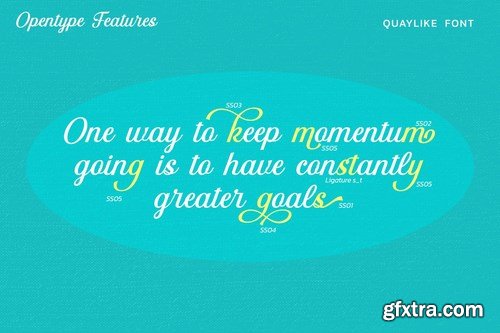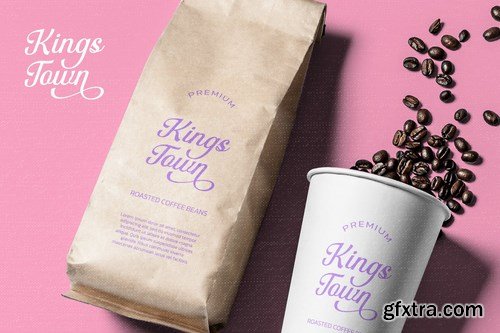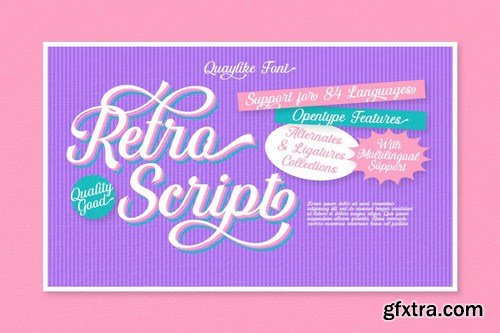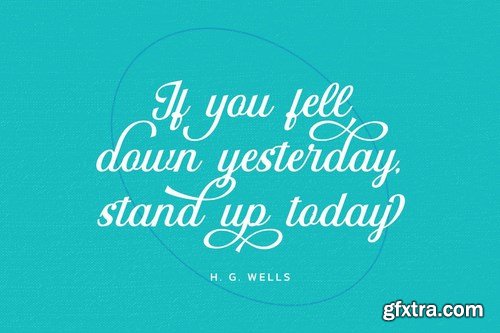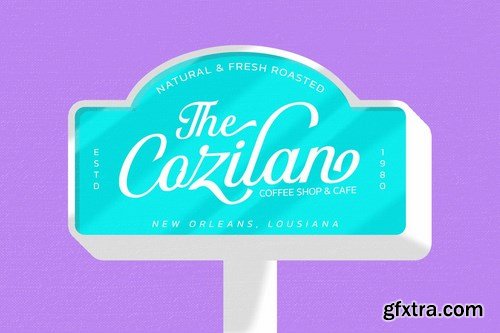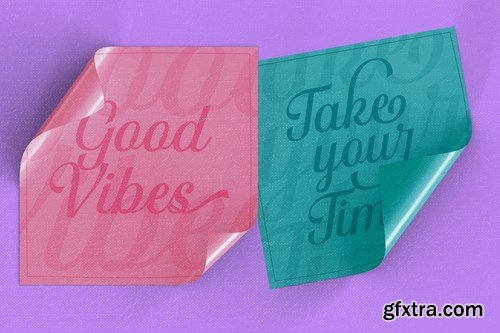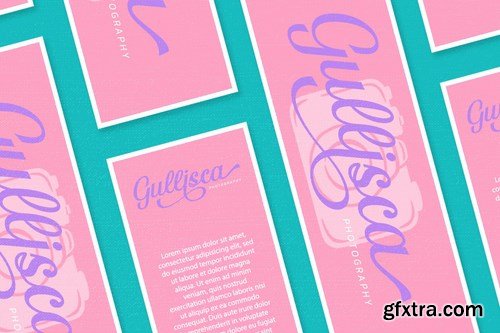
Quaylike-A Handwritten Font
This font is more than just another handwritten font. Quaylike is a handwritten font with big, quirky letters. It encapsulates the essence of luxury and elegance. Designed primarily as a captivating handcrafted with retro style. This typeface that is easy on the eyes font that excels at captivating headlines, or large branding text, the font oozes that cute aesthetic that just makes you go “aww!”
Features:
Ligatures
Stylistic Sets
Numerals and Punctuation